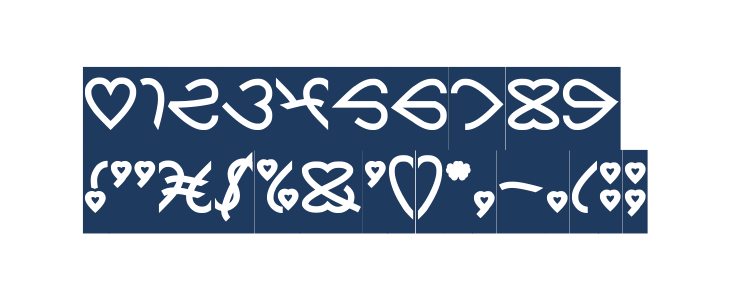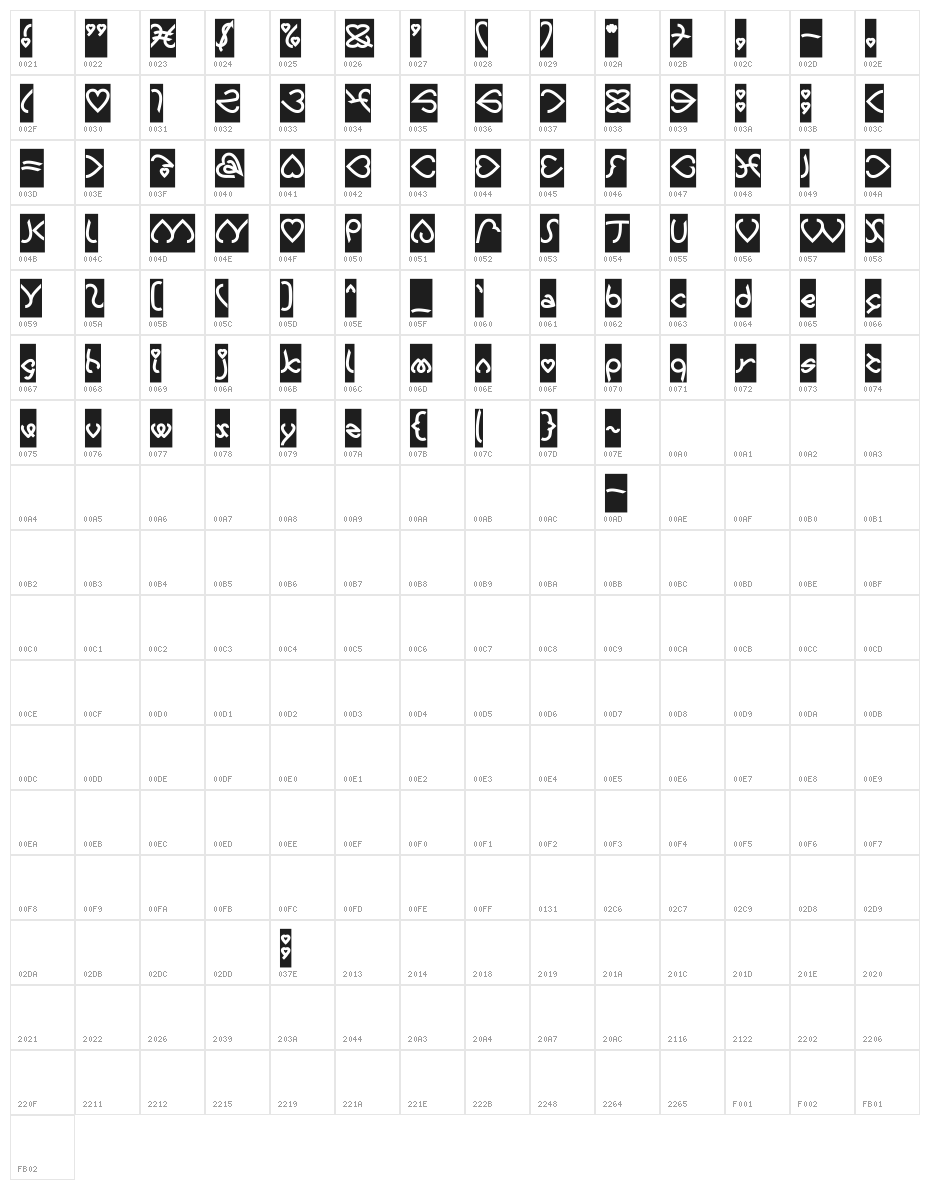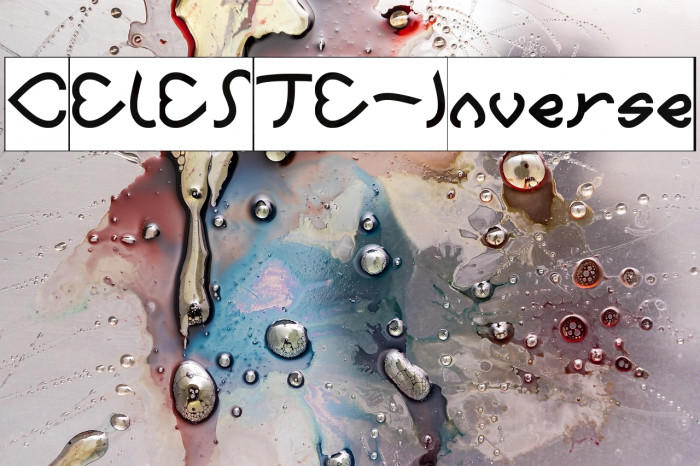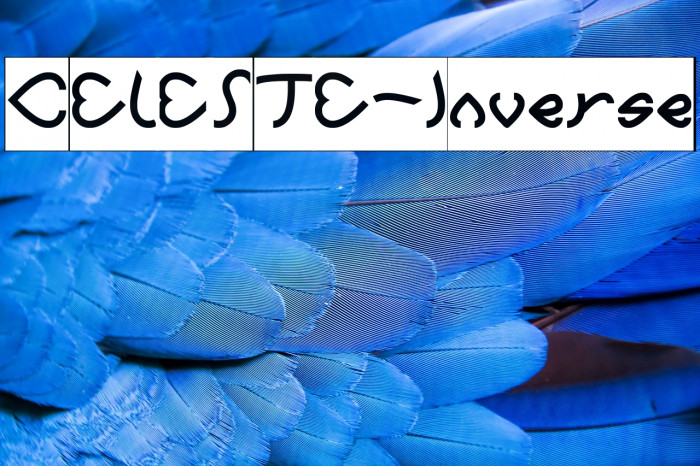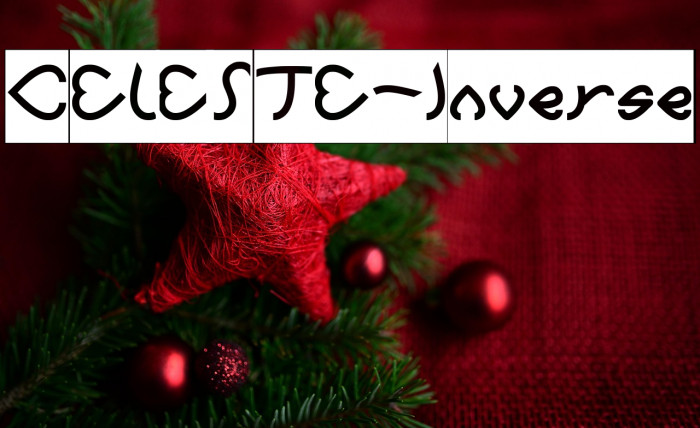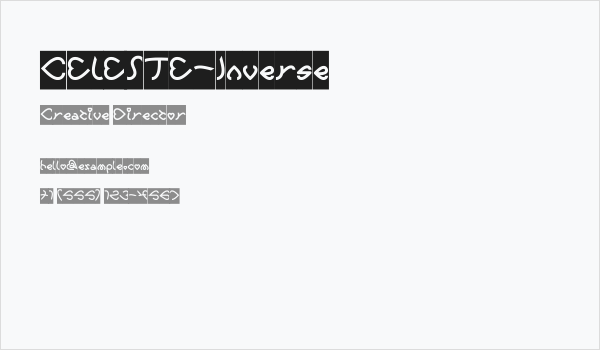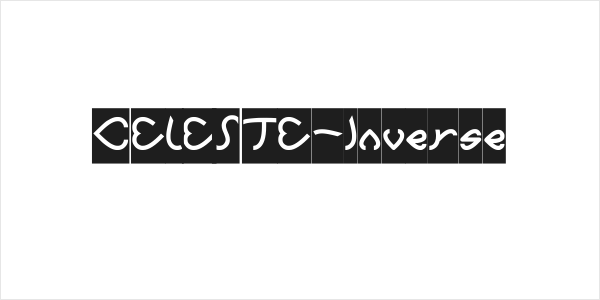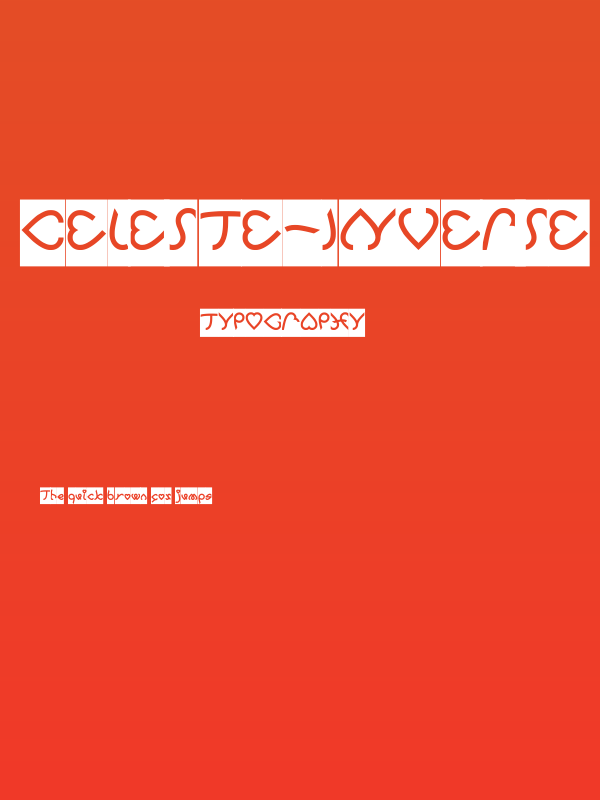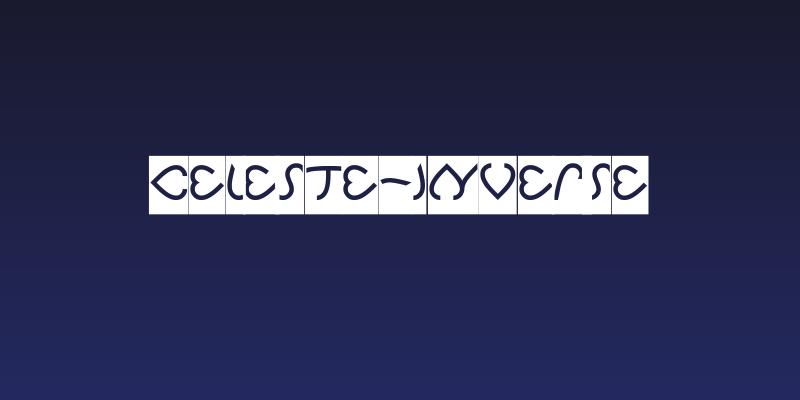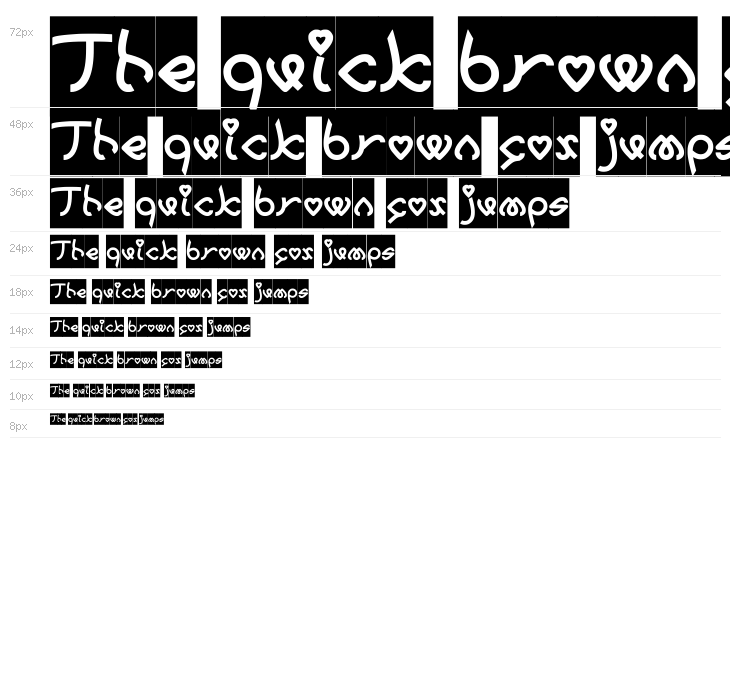
CELESTE-Inverse Font
CELESTE-Inverse Description
This font features a playful and decorative style with heart motifs integrated into many of the characters. The letters are curvy and whimsical, with a consistent use of heart shapes that add a romantic and fun element. The uppercase and lowercase letters maintain a cohesive design, with the lowercase letters being slightly more compact. Numbers and special characters follow the same decorative theme, making them suitable for creative and informal projects. The overall appearance is bold and eye-catching, perfect for designs that aim to convey warmth and affection.
| Proposed Projects | Ideal for greeting cards, wedding invitations, love-themed posters, and playful branding projects. |